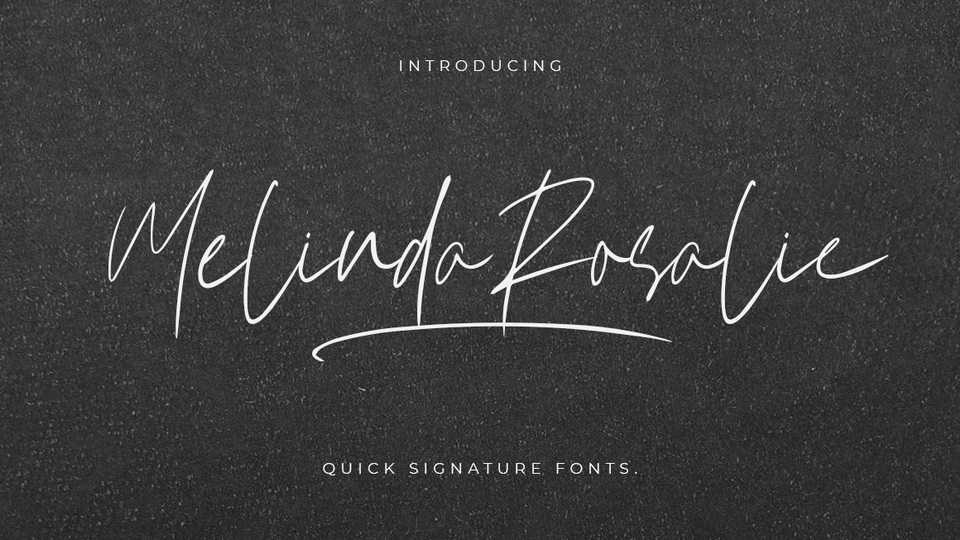
Download Melinda Rosalie font, a stunning signature typeface with a beauty twist, light and elegant flow. Melinda Rosalie font is suitable for use on branding, fashion, weddings, t-shirt designs, logotype, magazines, quotes, photography, website, watermarks, invitations, signatures.